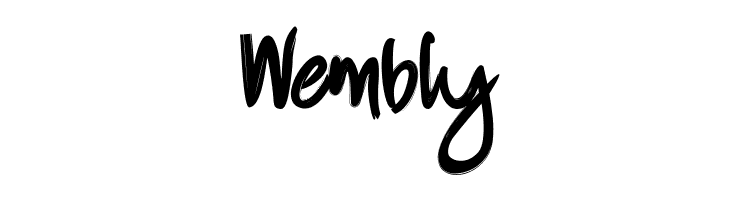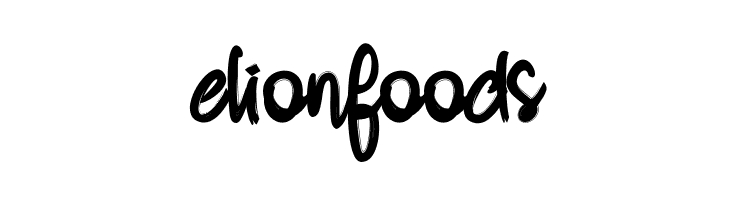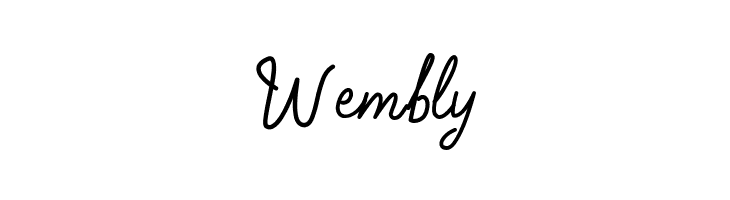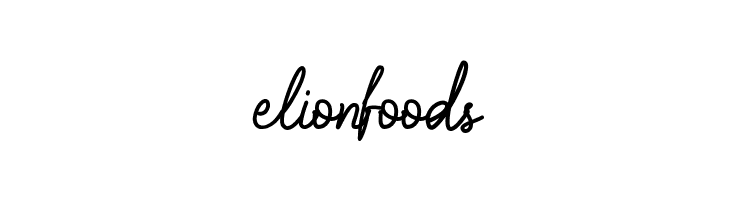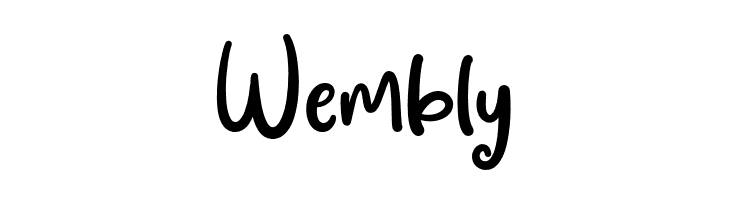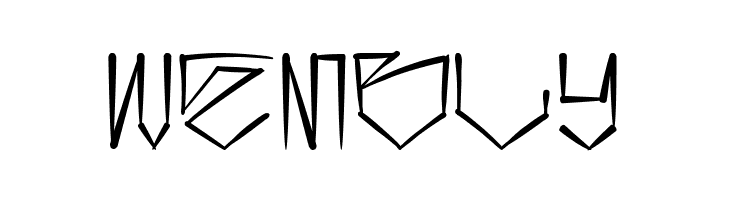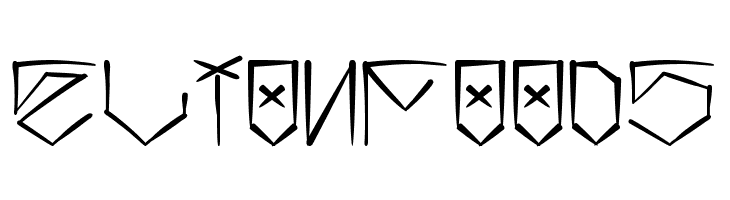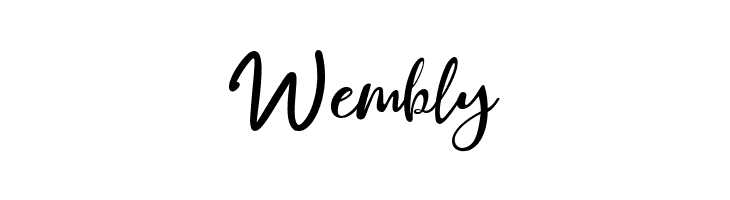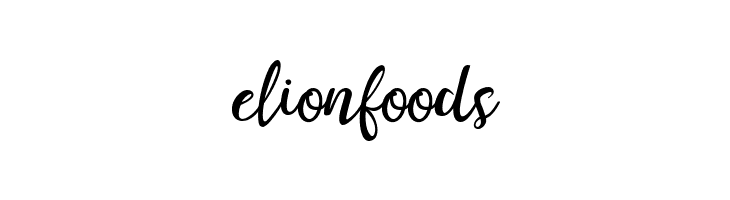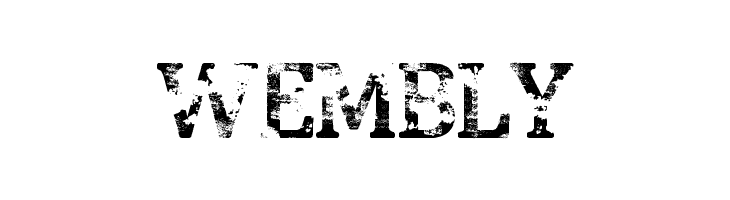
An ornate and decorative script font with flowing lines and elaborate swashes.
A playful, handwritten script font with smooth, flowing characters.
A distressed, grunge-style font with a textured, urban appearance.
A bold, angular font with a graffiti-inspired, urban aesthetic.
A gritty, distressed font with a hand-drawn, urban style.
A bold, textured font with a brush stroke appearance, offering a dynamic and artistic style.
A playful, hand-drawn font with a stretchy, rubber-like appearance.
A charming handwritten font with fluid, connected letterforms and elegant curves.
An elegant, flowing script font with a handwritten style.
A bold, angular font with a modern, geometric design.
A bold, playful font with a 3D striped effect and strong outlines.
A bold, distressed font with a textured, grunge appearance.
A bold, distressed font with a grunge texture and rugged appearance.
A geometric, maze-like font with intricate line patterns and a bold, modern style.
A bold, edgy, and italicized font with sharp, angular lines.
A playful, hand-drawn font with tall, narrow letters and a whimsical style.
A playful, bold handwritten font with tall, narrow letters and rounded edges.
A bold, edgy font with unique skull-like details for a rebellious look.
A bold, distressed font with a vintage, rugged appearance.
A bold, distressed font with a textured, weathered appearance.
A whimsical and elegant script font with flowing, dynamic strokes.
A flowing, cursive script with elegant loops and a handwritten style.
A playful, handwritten font with smooth, rounded edges and a casual style.